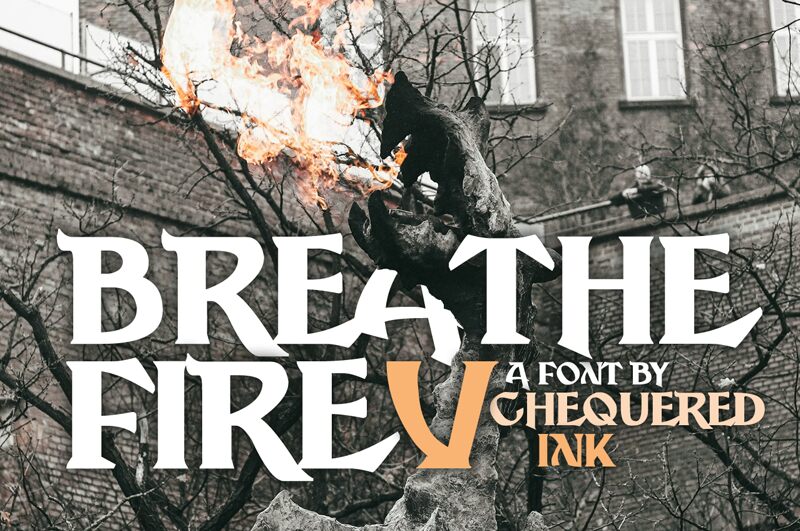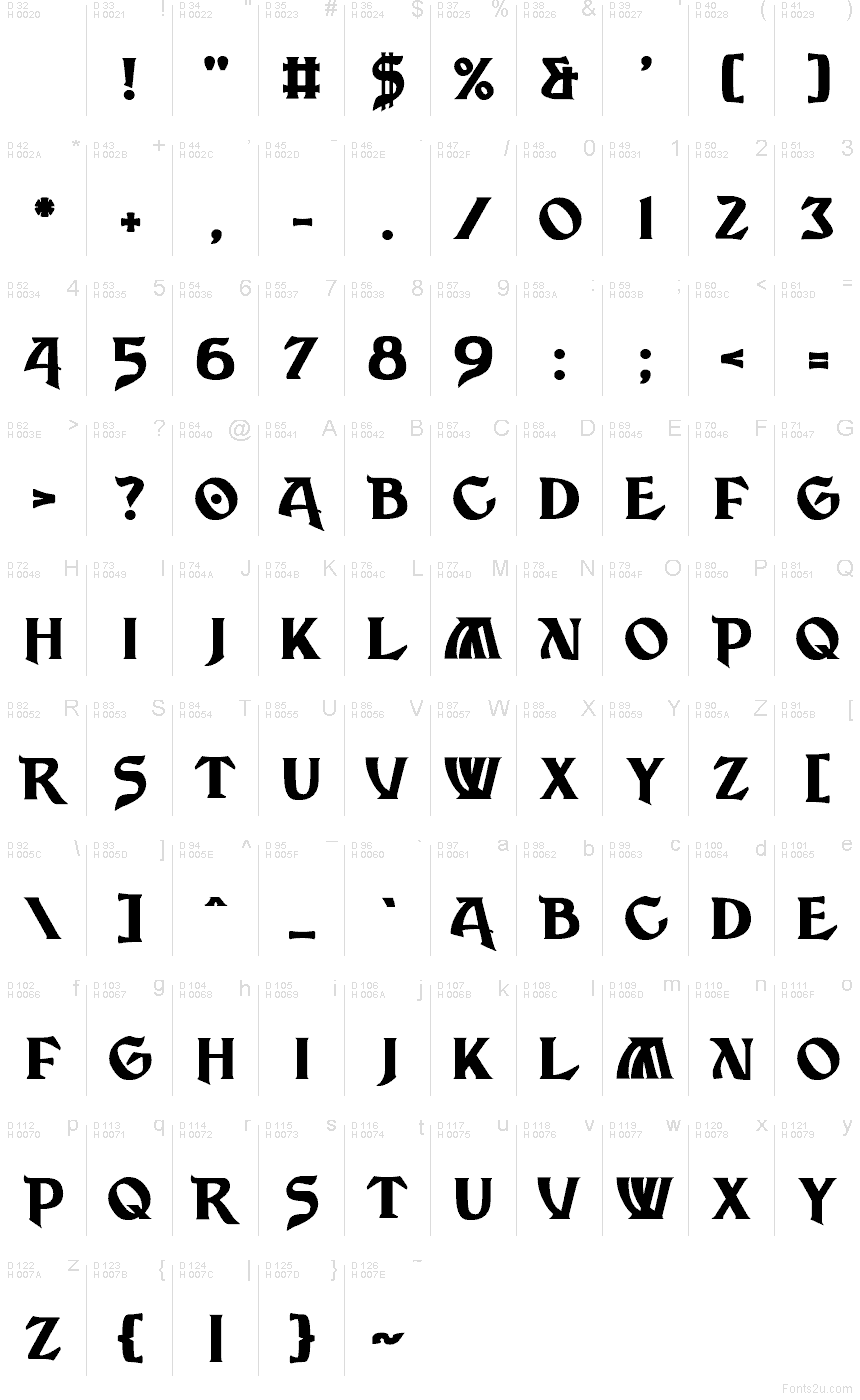
Breathe Fire V
Breathe Fire V font by Chequered Ink is a free gothic Celtic typeface that looks like it’s been carved from dark stone and lit from within. Its angular strokes, hooked corners, and tight, marching rhythm give every word a ritualistic, battle-ready feel—somewhere between medieval script and fantasy game logo. The letters lock together with a solid, almost runic weight that instantly pushes designs into myth and legend territory.
Using Breathe Fire V, you can brand fantasy games, metal band logos, tabletop campaigns, book covers, festival posters, and medieval-themed event graphics with a consistent, fiery voice. This free font shines at large sizes where its sharp edges and dramatic silhouettes can really bite into the page. Pair it with a clean, unobtrusive sans serif for body text, and let Breathe Fire V handle the heavy lifting in titles, wordmarks, and hero graphics.